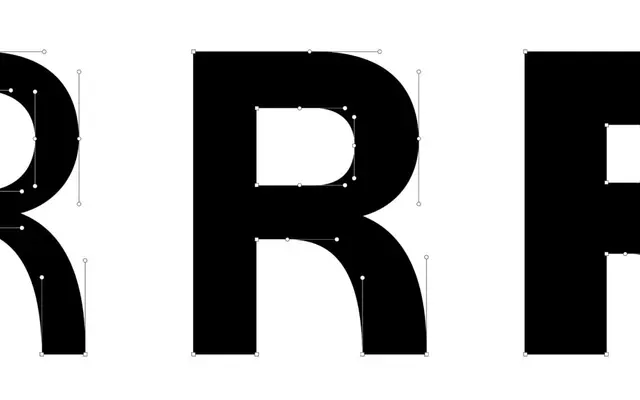
Nouvelle Grotesk
Nouvelle Noire · Anton Studer · 2020
A Swiss grotesque by Anton Studer that positions itself within the Helvetica and Akzidenz lineage, offering seven weights each paired with a sloped 'Diagonal' companion rather than a conventional italic.
Released in 2020, the family runs from Thin to Fat across fourteen styles, with each upright weight matched by a Diagonal cut that substitutes for a traditional italic. Nouvelle Noire frame it as a contribution to the Swiss grotesque canon alongside Helvetica, Univers and Akkurat, aiming for simplicity with a degree of warmth rather than pure neutrality. The character set covers extended Latin with accented and special characters, making it a workable choice for multilingual European work.
A Swiss grotesque in the tradition of Akzidenz Grotesk and Helvetica, with the foundry explicitly positioning it within the Swiss Style Grotesque lineage. The 'Diagonal' cuts replace a conventional italic with a sloped roman.